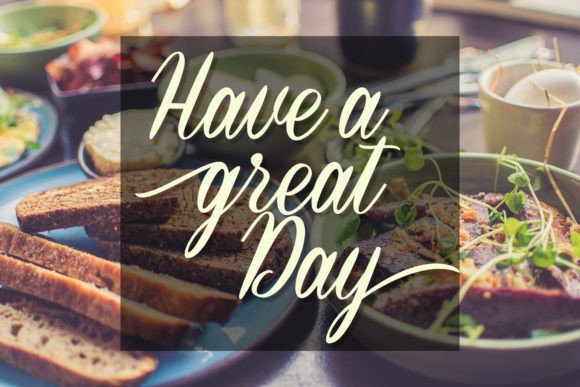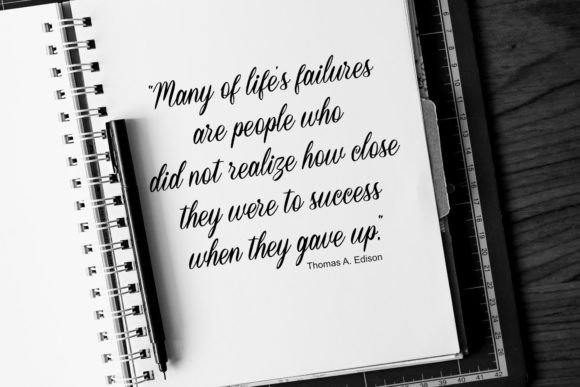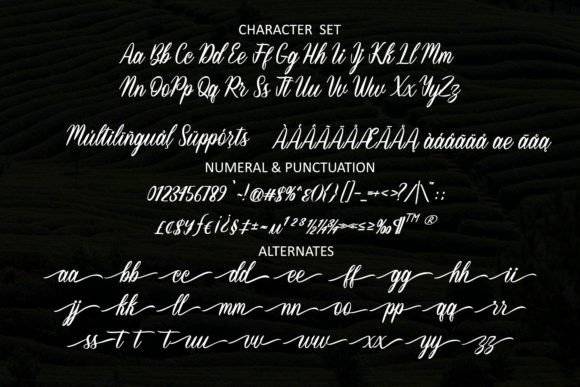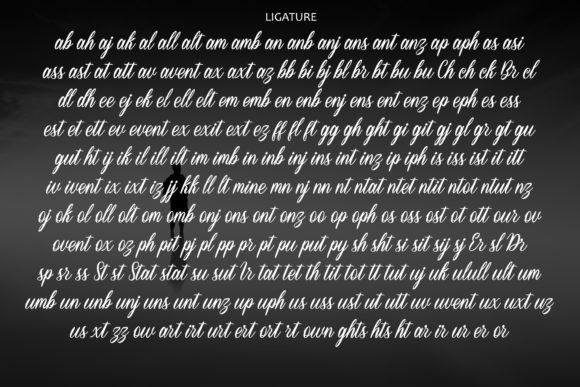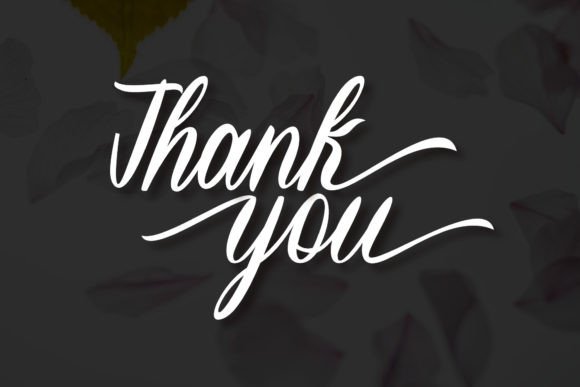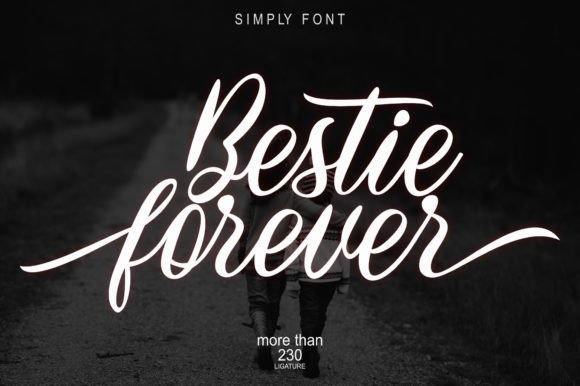
Discover the Elegance of Bestie Forever Font: A Delicate Handwritten Marvel
In the realm of typography, few fonts manage to capture the essence of elegance and delicacy as effortlessly as the Bestie Forever Font. This exquisite, handwritten font has been making waves among designers and crafters alike, and for good reason. Its delicate, elegant, and flowing script is not only a feast for the eyes but also incredibly versatile, making it a perfect match for a wide array of design projects.
The Characteristics of Bestie Forever Font
One of the standout features of the Bestie Forever Font is its beautifully crafted, well-balanced characters. Each letter is designed with meticulous care, ensuring that the font exudes a sense of harmony and sophistication. This balance is crucial, as it allows the font to complement a variety of design themes without overpowering them. Whether you’re working on a wedding invitation, a branding project, or a personal craft, Bestie Forever seamlessly integrates, adding a touch of class and refinement.
Another significant advantage of the Bestie Forever Font is its PUA (Private Use Area) encoding. This feature is a game-changer for designers and crafters, as it provides easy access to all glyphs and swashes. PUA encoding ensures that users can effortlessly navigate and utilize the font’s extensive range of special characters, ligatures, and swashes, allowing for greater creativity and flexibility in design projects. This means you can say goodbye to the limitations of standard fonts and hello to a world of typographic possibilities.
Versatility: A Font for Diverse Design Needs
The versatility of Bestie Forever Font is one of its most compelling attributes. Its elegant and flowing script makes it an ideal choice for:
- Wedding and Event Stationery: Add a touch of romance and sophistication to wedding invitations, save-the-date cards, and other event-related designs.
- Branding and Packaging: Elevate your brand’s visual identity with a font that communicates elegance, luxury, and refinement.
- Personal Crafts: Whether you’re creating custom journals, planners, or DIY projects, Bestie Forever adds a personal and artistic touch.
- Digital Content: Enhance your website, blog, or social media graphics with a font that stands out and engages your audience.
Why Designers and Crafters Love Bestie Forever
Designers and crafters have fallen in love with Bestie Forever Font for several reasons:
- Ease of Use: With PUA encoding, accessing the font’s features is straightforward, saving time and boosting productivity.
- Aesthetic Appeal: The font’s delicate and elegant design makes it a go-to for projects requiring a sophisticated look.
- Support for Creative Freedom: The extensive range of glyphs and swashes empowers users to experiment and push the boundaries of their designs.
The Bestie Forever Font is more than just a typeface; it’s a design companion that brings elegance, versatility, and creativity to the table. Its delicate, elegant, and flowing handwritten script, combined with PUA encoding for easy access to glyphs and swashes, makes it an indispensable tool for designers and crafters. Whether you’re aiming to create stunning wedding stationery, elevate a brand’s visual identity, or add a personal touch to crafts, Bestie Forever Font is an excellent choice. Embrace the beauty and flexibility of Bestie Forever, and watch your designs transform into captivating works of art.